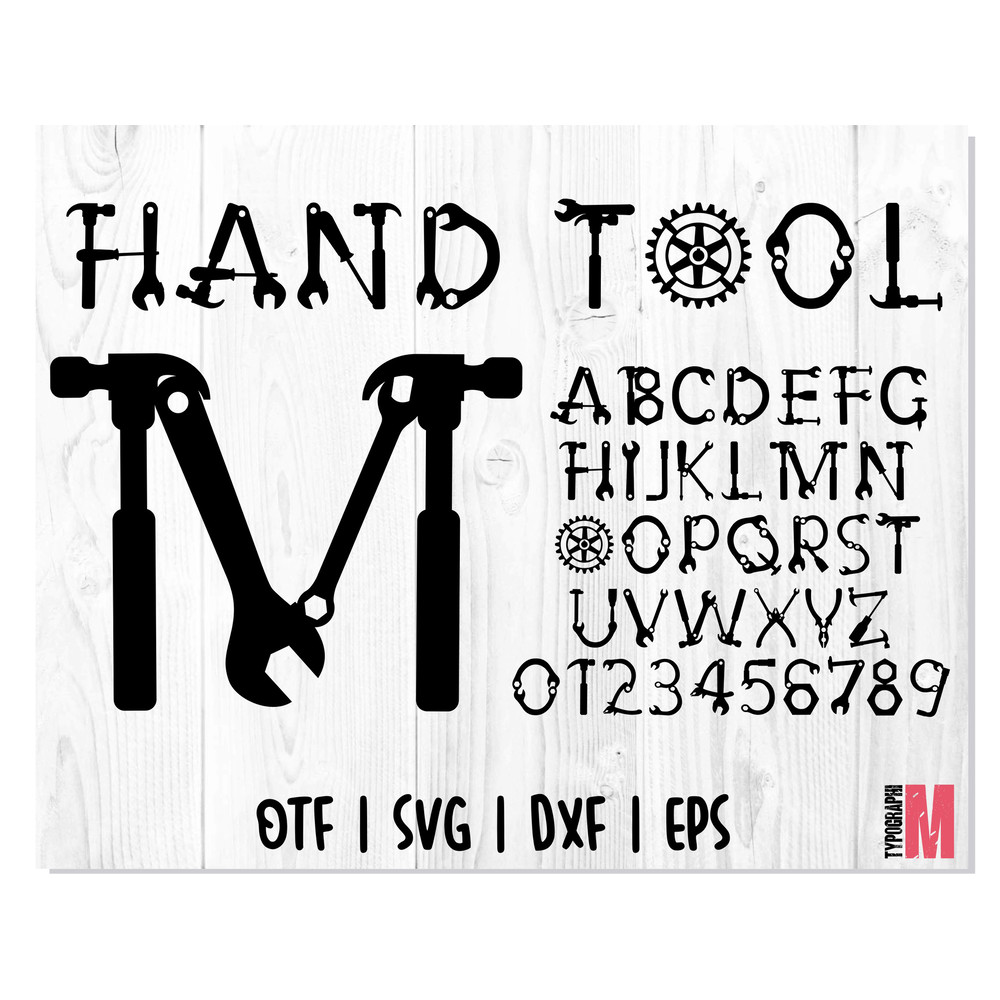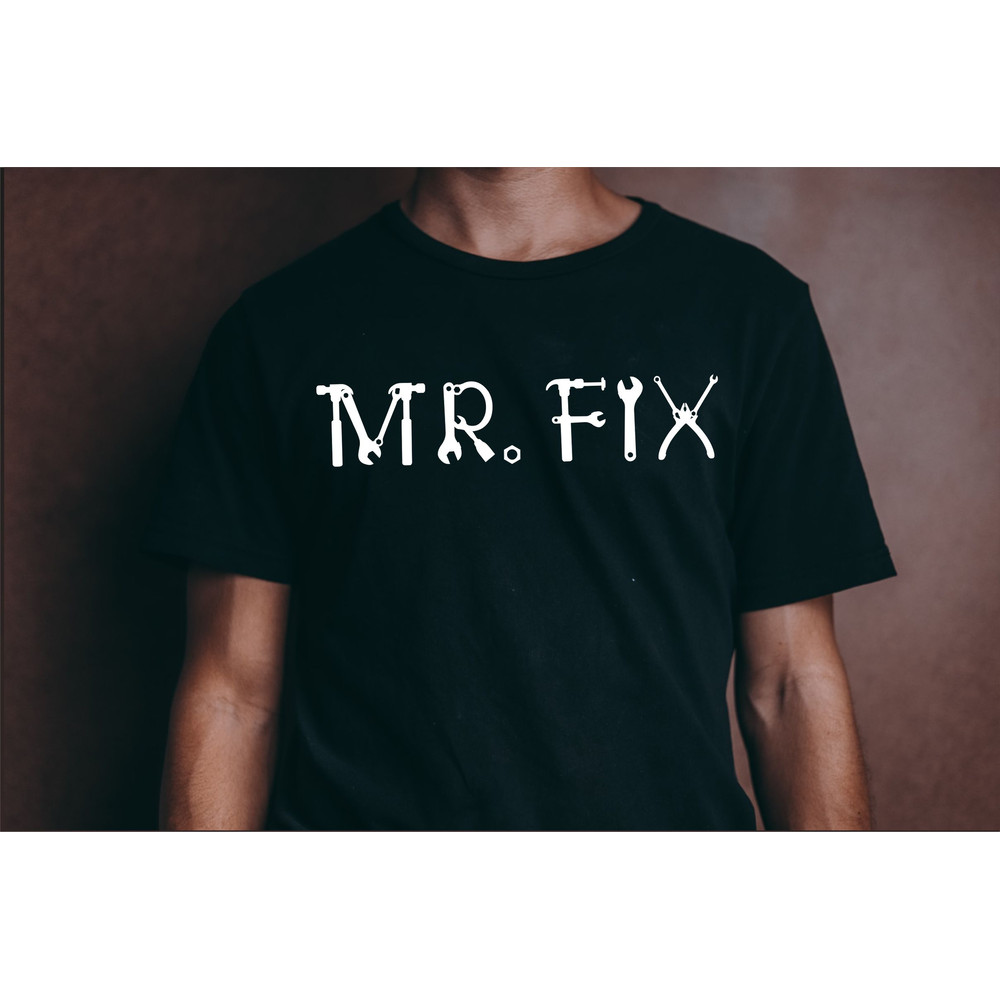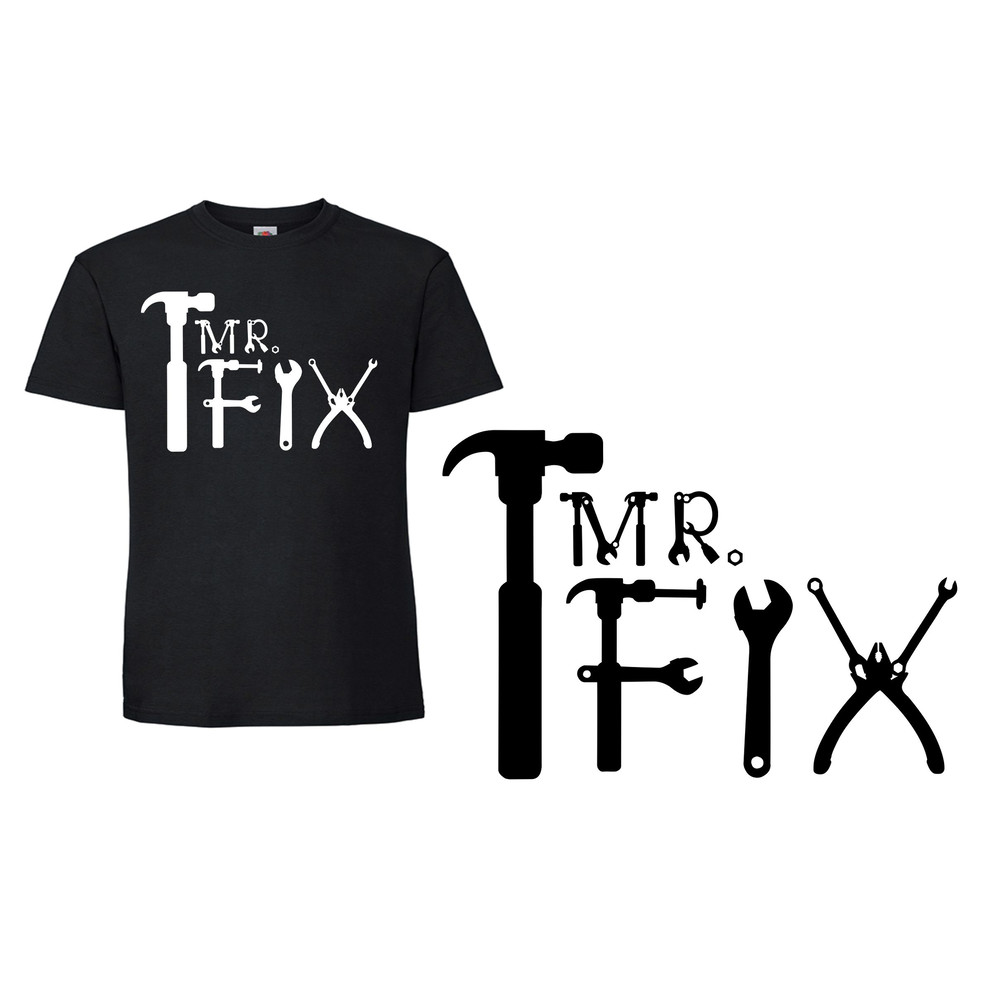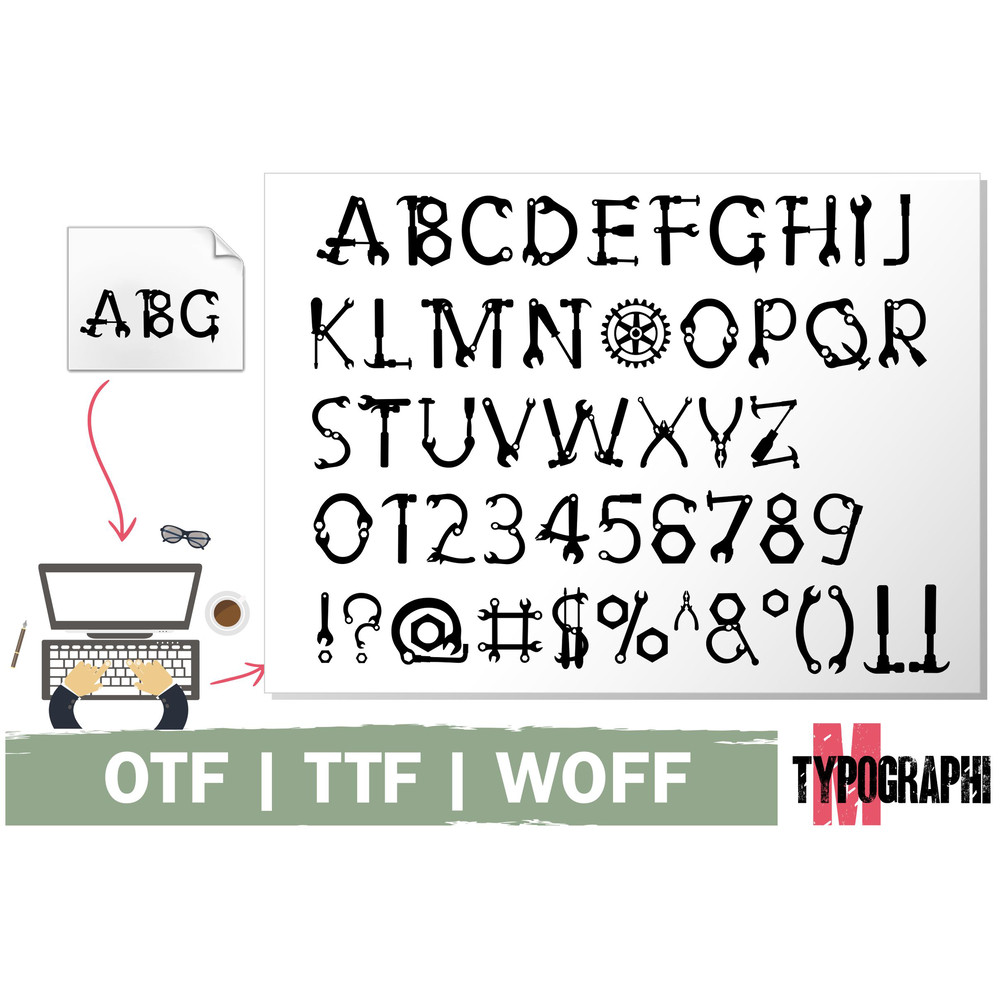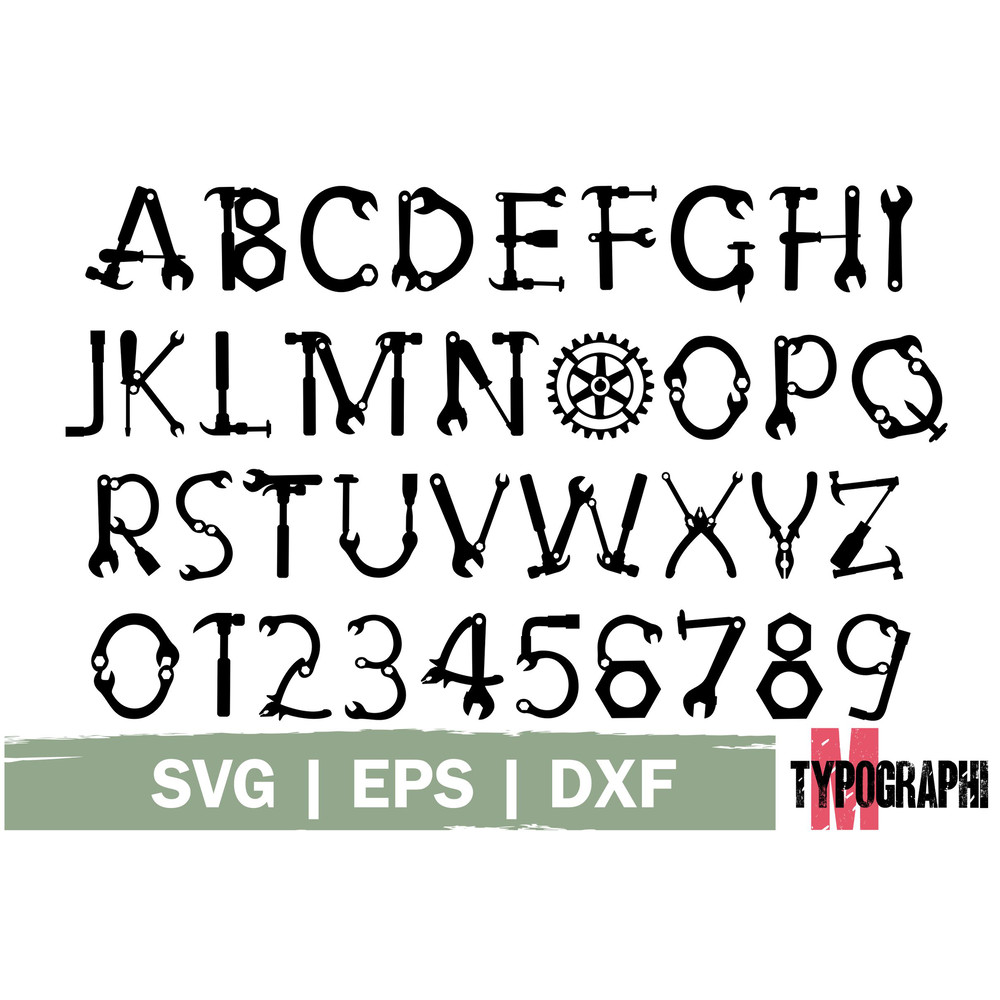
Hand Tool celebrates tool shapes in all their technical beauty. This playfully conceptual display typeface font will look truly outstanding in a wide range of contexts.